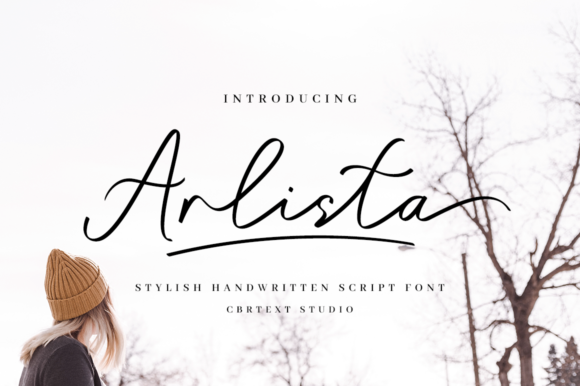
Introducing Arlista Font, an enchanting script font that oozes charm and elegance. This captivating font, crafted by CBRTEXT Studio, is a true masterpiece designed to elevate your creative projects to new heights. Arlista's playful handwritten style adds a touch of whimsy and personality to any design, making it the perfect choice for those seeking a unique and authentic font.
Arlista's versatility knows no bounds. Whether you're a design enthusiast, a social media maven, or a crafting aficionado, Arlista will effortlessly enhance your creative vision. Its graceful swashes and elegant ligatures dance across the page, adding a touch of sophistication and artistry to your words. Unleash your imagination and let Arlista transform your projects into captivating works of art.
With Arlista at your fingertips, you'll discover a world of creative possibilities. Design eye-catching logos that leave a lasting impression, create stunning social media posts that captivate your audience, or add a personal touch to your DIY projects. Arlista's charm is simply irresistible.
So, embark on a creative journey with Arlista Font. Let its whimsical spirit ignite your imagination and turn your creative dreams into reality. Download Arlista today and unlock a world of endless creative possibilities.